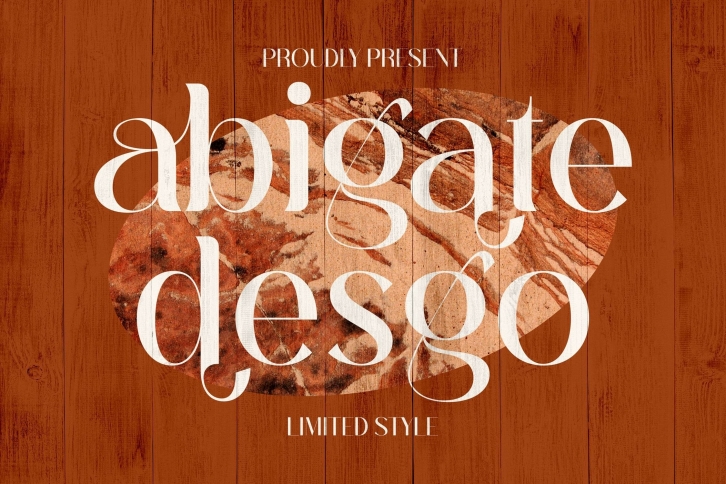
abigate desgo is a trendy and unique font with an authentic style. It was designed by Pricilia Design and it's a great choice for creative people who need such a font. It was released on April 28, 2022 and the file size is 14.5 MB. abigate desgo will add an organic vibe to any design idea!